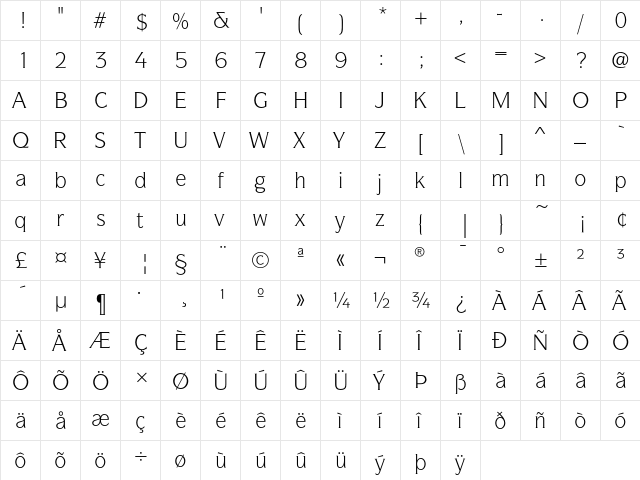
SymbolEF Book
Design Context for SymbolEF Typeface
SymbolEF offers clean, dependable letterforms without strong stylistic allegiance, making it a practical choice for designers who need flexibility.